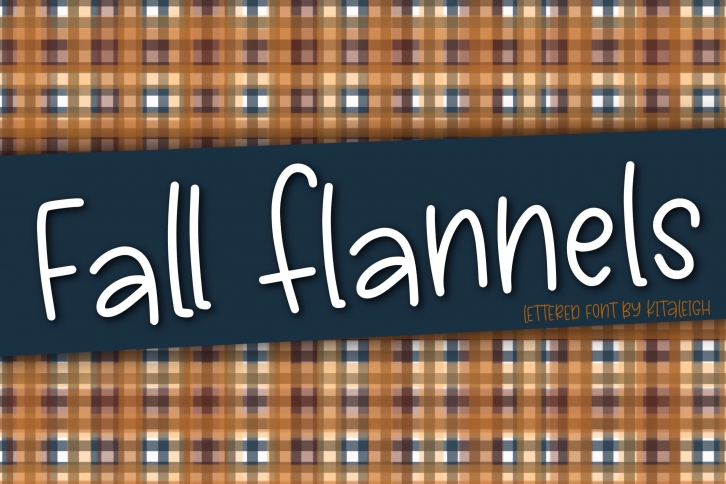
Looking for a unique font to add to your next craft project? Check out Fall Flannels! This hand-lettered font has a fun and whimsical look that is perfect for autumn-themed projects. Best of all, it’s a thin font, so it won’t add bulk to your project. Give Fall Flannels a try today! Don’t let the name fool you it is great for many other projects as well!